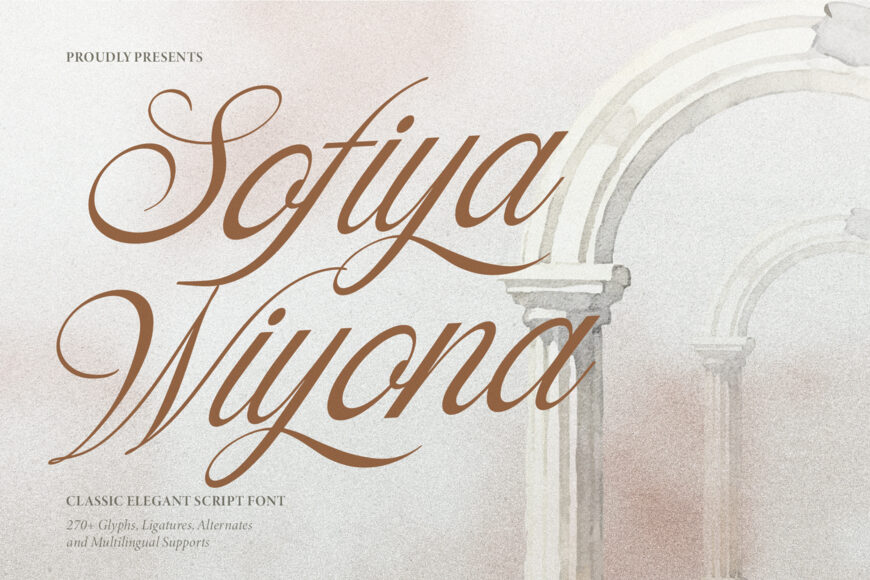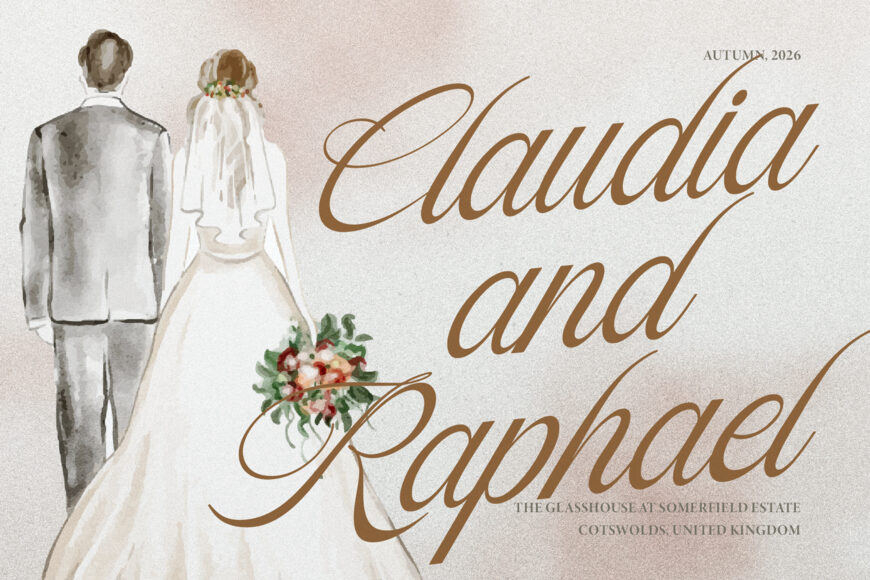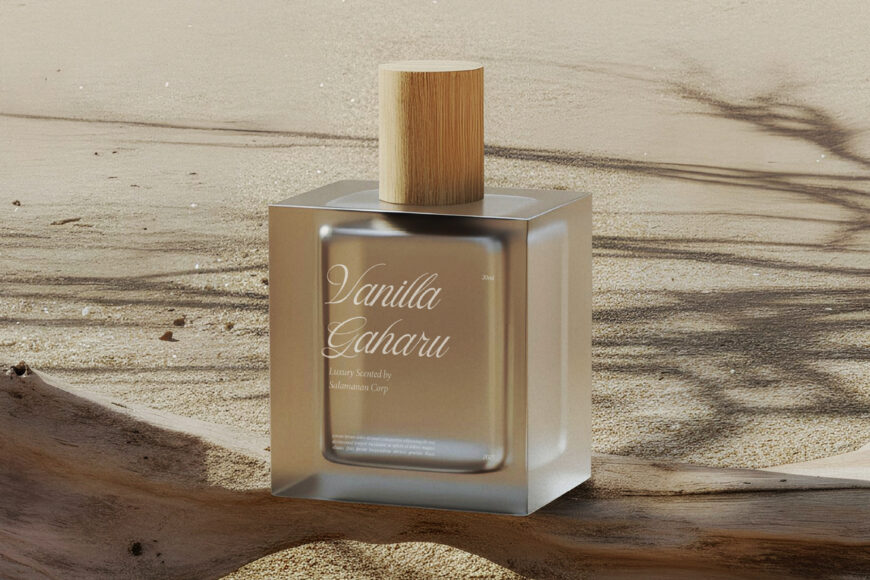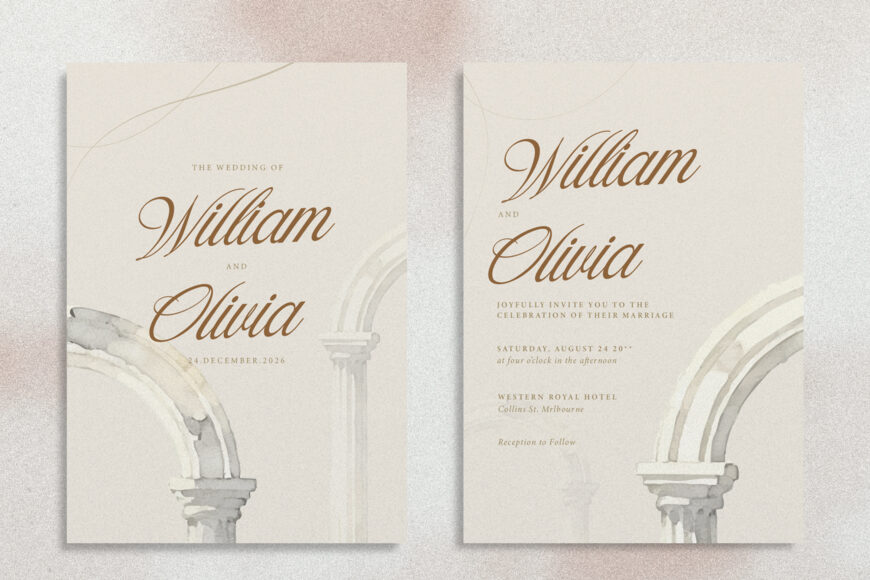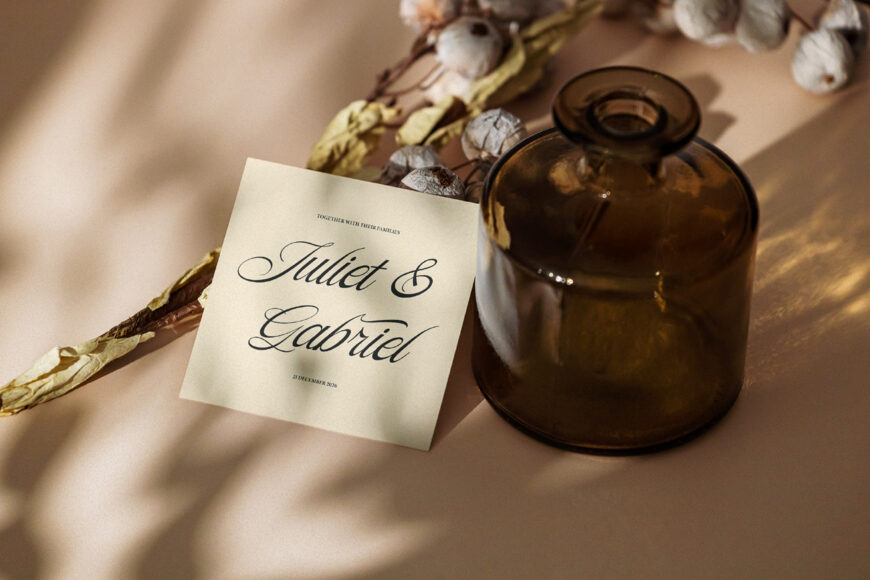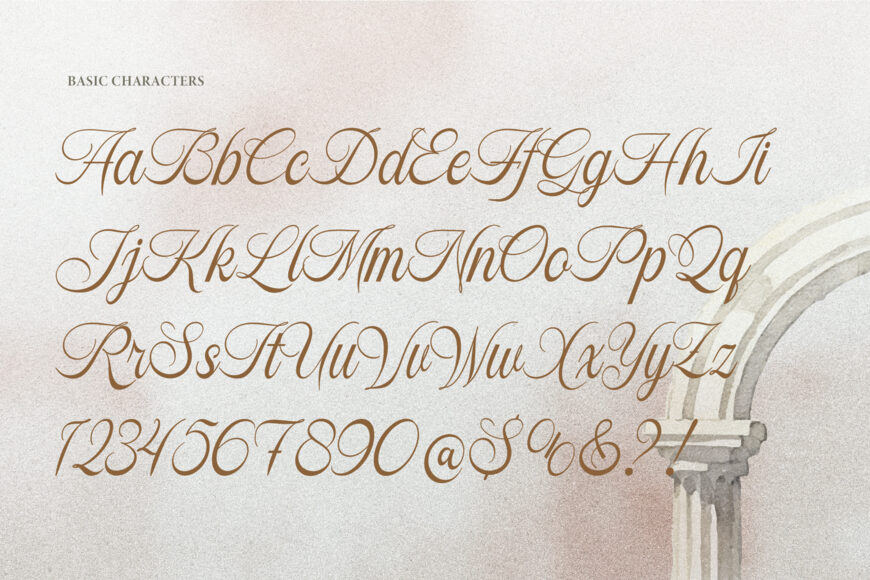
Elevate your typography with timeless romance, delicate calligraphy, and high-end sophistication with Sofiya Wiyona! Ideal for wedding invitations, luxury brand logos, photography watermarks, aesthetic stationery, editorial layouts, boutique packaging, quote art prints, and custom Cricut or Silhouette craft SVG projects!